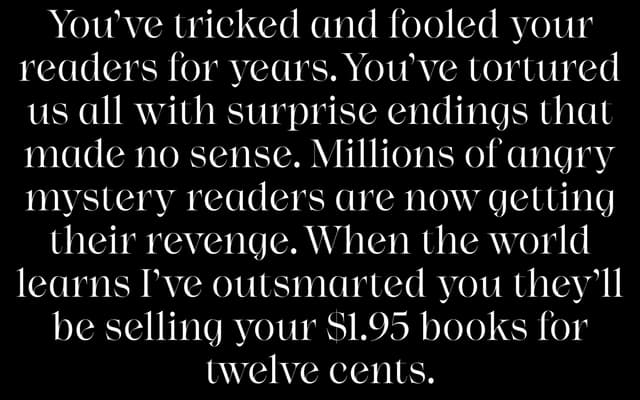
A five-weight text serif from Beasts of England, available as individual styles or as a variable font in the full family purchase.
Niven spans Light to Bold across upright and italic cuts, giving ten styles in total plus a variable file bundled with the full family. The foundry's specimen leans into intimate, domestically British prose, suggesting the typeface is pitched at literary, editorial and long-form reading contexts. Licensing starts at a single user and scales to studio level.
The specimen and style naming suggest a classical text serif with upright and italic cuts across a conventional weight range, consistent with a transitional or humanist serif category.